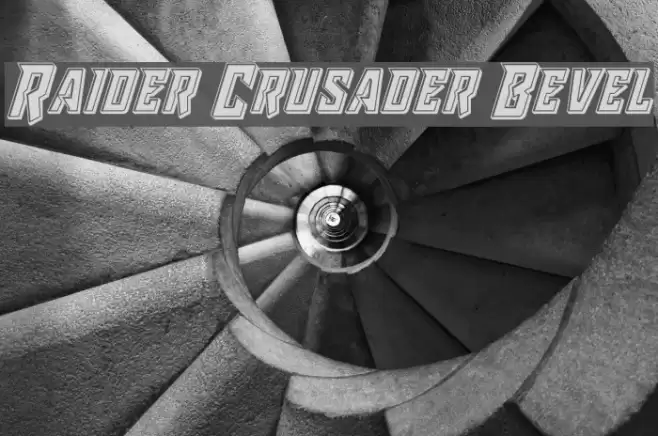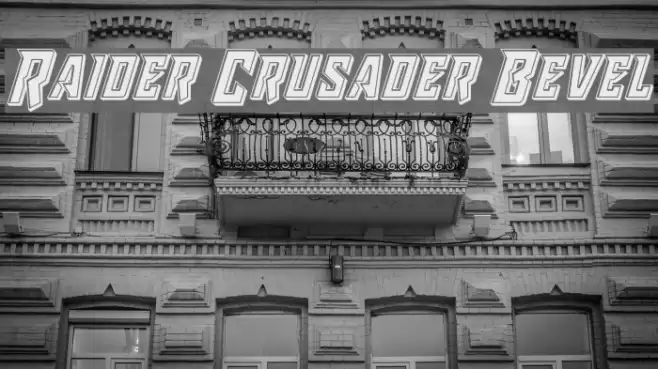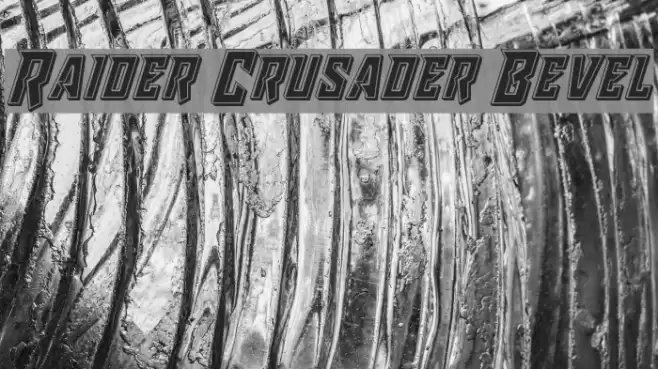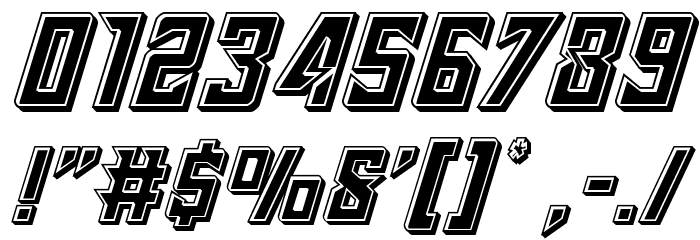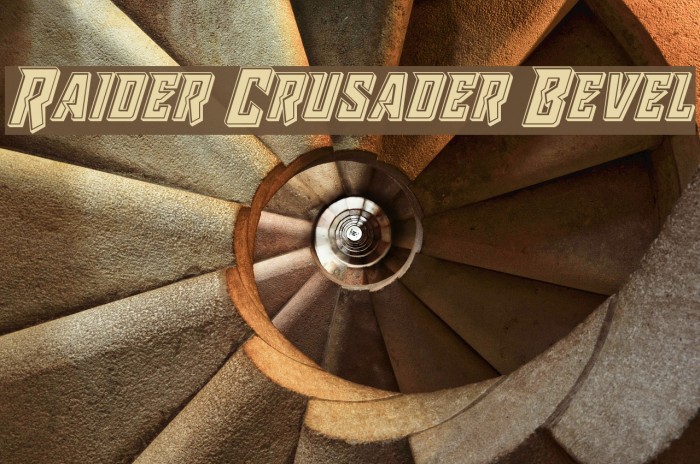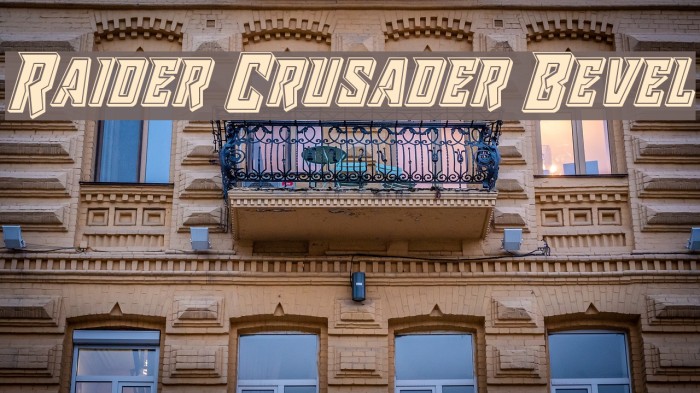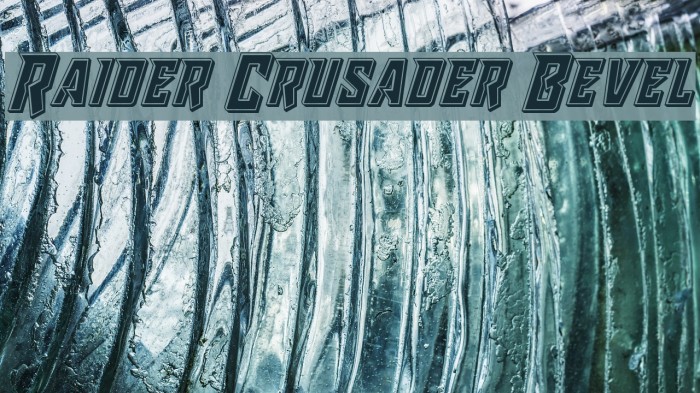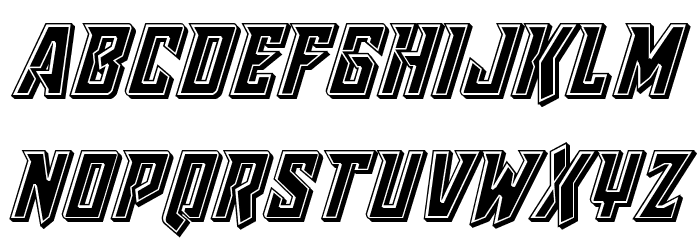
Raider Crusader Bevel Font
Raider Crusader Bevel Description
This font features a bold, dynamic style with a distinct beveled edge that gives it a three-dimensional appearance. The characters are uppercase and have a strong, angular design, reminiscent of sports or action-themed typography. The strokes are thick and consistent, providing a sense of power and movement. The font is well-suited for impactful headlines and titles, where a commanding presence is desired. Its unique style makes it ideal for branding, posters, and any project that requires a bold statement.
A bold, beveled font with a dynamic, three-dimensional appearance from Uncategorized fonts.
- Proposed Projects: Ideal for sports branding, action-themed posters, and bold headlines.